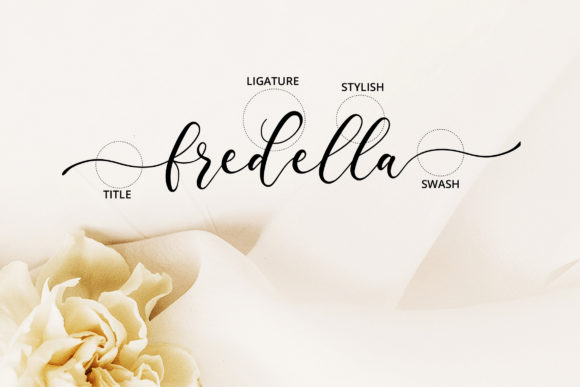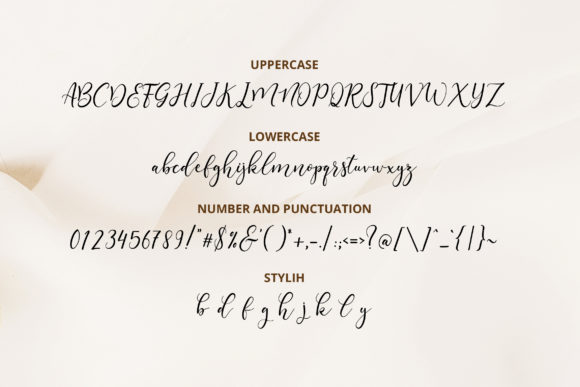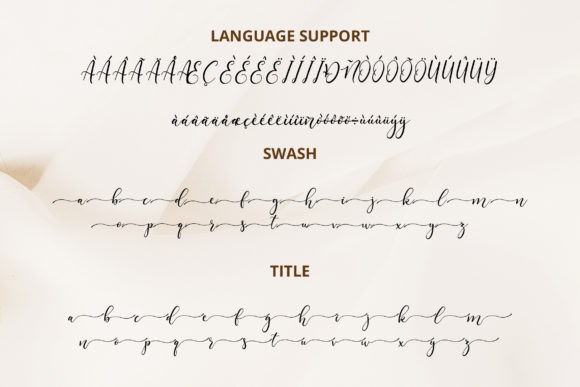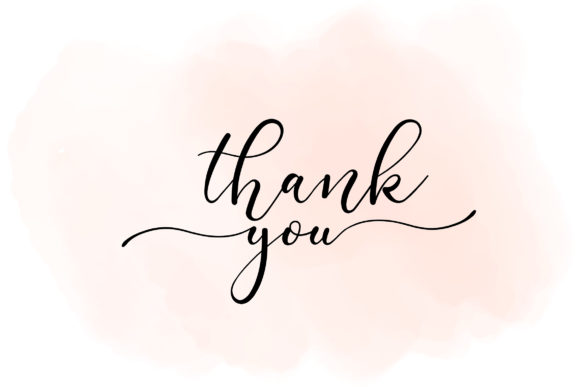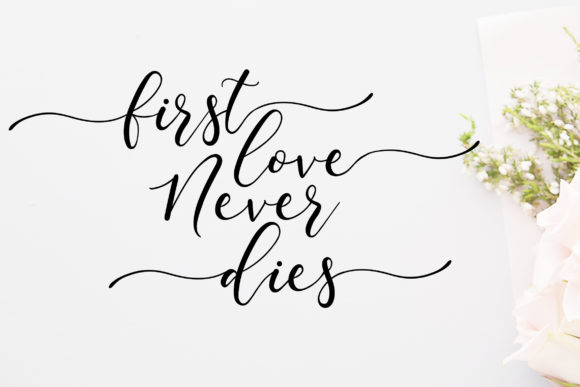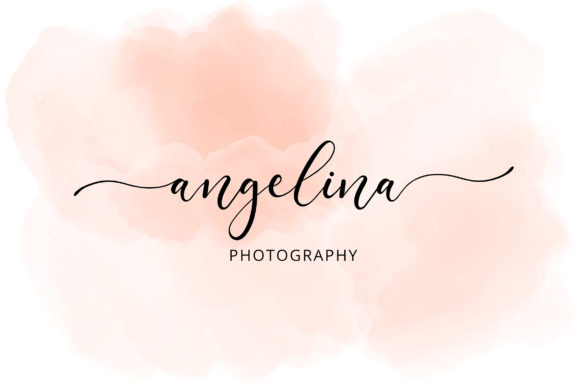
Introduction to Fredella Font
Fredella combines stunning swashes and light letters into one truly gorgeous script.
Ignite your creativity with its versatile charm .
Key Features of Fredella Font
Why Choose Fredella Font?
Fredella Font offers exceptional quality and versatility, making it a valuable addition to your design toolkit. Whether you’re creating for personal projects or commercial use, Fredella Font delivers professional results.